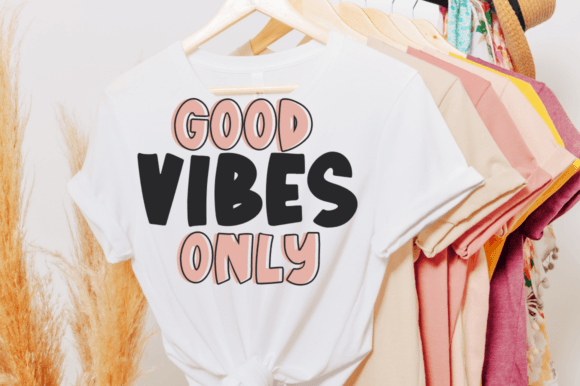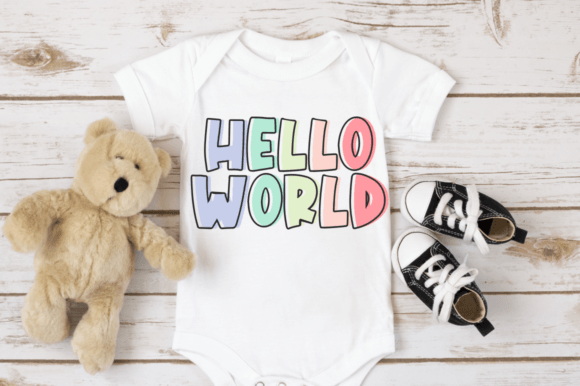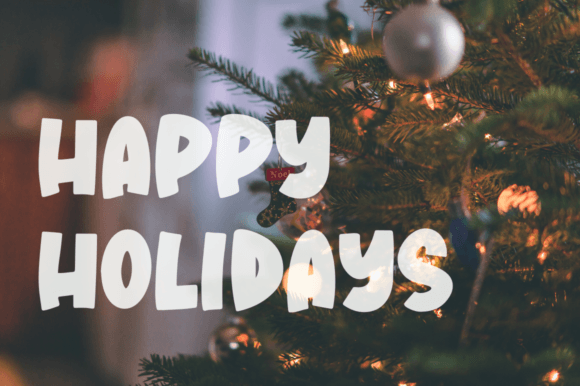
Introduction to Pipsqueak Font
Remember the moment when you stumbled upon the perfect font for your creative project? The one that makes your design pop and leaves a lasting impression on your audience? For designers and crafty enthusiasts, this moment is a game-changer. And, we’re excited to introduce you to the Pipsqueak Font, a fun and bold handwritten display font that’s sure to become your new favorite design resource.
Whether you’re working on a high-quality digital design, creating a presentation that needs a personal touch, or making greeting cards for a special occasion, the Pipsqueak Font has got you covered. With its playful and quirky feel, this font is perfect for adding a touch of whimsy to your projects. And, the best part? It’s available for free download, making it an accessible and valuable resource for designers of all levels.
From transparent backgrounds to intricate designs, the Pipsqueak Font is a versatile tool that’s waiting to be unleashed in your next creative project. So, what are you waiting for? Dive into the world of Pipsqueak Font and discover the endless possibilities it has to offer.
Key Features of Pipsqueak Font
- High-quality design ideal for creative projects, including logos, graphics, and other visual elements.
- Comes with a transparent background, making it easy to overlay on any image or design.
- Features a unique, playful style that adds a touch of whimsy to any design project.
- Resolution-independent, allowing for crisp and clear rendering at various sizes and resolutions.
Honest Review: Pipsqueak Font
I recently stumbled upon the Pipsqueak Font, and I must say it’s been a great addition to my design resources. As a designer, I’m always on the lookout for high-quality fonts that can elevate my creative projects.
Here are some things that work well with the Pipsqueak Font:
- ✨ Unique and playful design: The font has a quirky feel to it that’s perfect for projects that need a bit of whimsy.
- ✨ High-quality raster images: The font comes with high-resolution images, making it perfect for print or web design.
- ✨ Transparent background: This feature allows for seamless integration with other design elements.
- ⚠️ Limited language support: The font only supports a few languages, which may be a limitation for global projects.
Pipsqueak Font is perfect for a variety of creative projects, including children’s book illustrations, party invitations, and social media graphics. Its unique design and transparent background make it an excellent choice for designs that require a touch of whimsy and fun.
Tips for Getting the Most Out of Pipsqueak Font
To get the most out of Pipsqueak Font, experiment with different font sizes, colors, and styles to create a unique look. You can also combine Pipsqueak Font with other design elements to create a cohesive and visually appealing design.